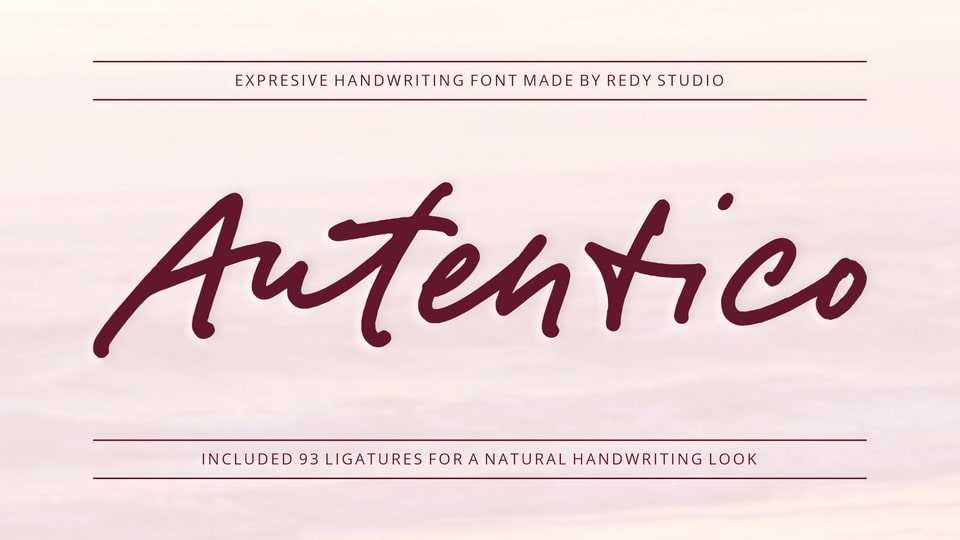
Download Autentico font, a beautiful and sexy handwriting types. Autentico font was inspired by modern calligraphy, but with a more crushed look, making it perfect for wedding invites, greeting cards, or logos.
Designer: Redy Studio